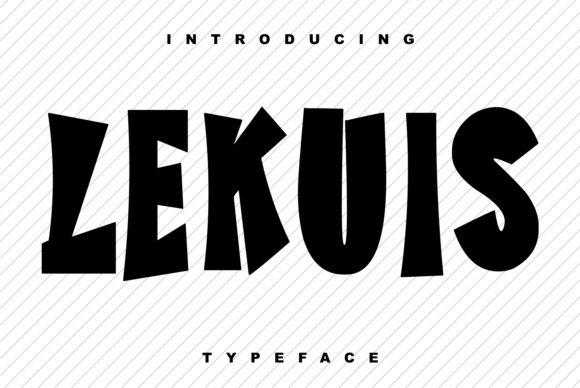
Introducing Lekuis, the font that will make your designs shine like never before! This bold and captivating display font exudes a raw and edgy charm that is sure to leave a lasting impression. With its thick, solid letters and sharp edges, Lekuis demands attention and commands respect.
Unleash your creativity and let Lekuis be your muse. This font is perfect for creating logos, posters, social media graphics, T-shirt designs, and any other project that demands a powerful visual punch. Its strong presence will cut through the noise and ensure your message is heard loud and clear.
Lekuis is more than just a font; it's an experience. Its unique style and impeccable craftsmanship will elevate your work to new heights, setting you apart from the crowd. It's the perfect choice for designers who crave originality, innovation, and impact.
Don't settle for ordinary fonts that blend in with the background. Choose Lekuis and watch your designs transform into masterpieces. The font's visual prowess will captivate your audience and leave them wanting more.
Embrace the power of Lekuis and unlock the true potential of your creativity. This font is the key to creating designs that resonate, designs that make a difference.